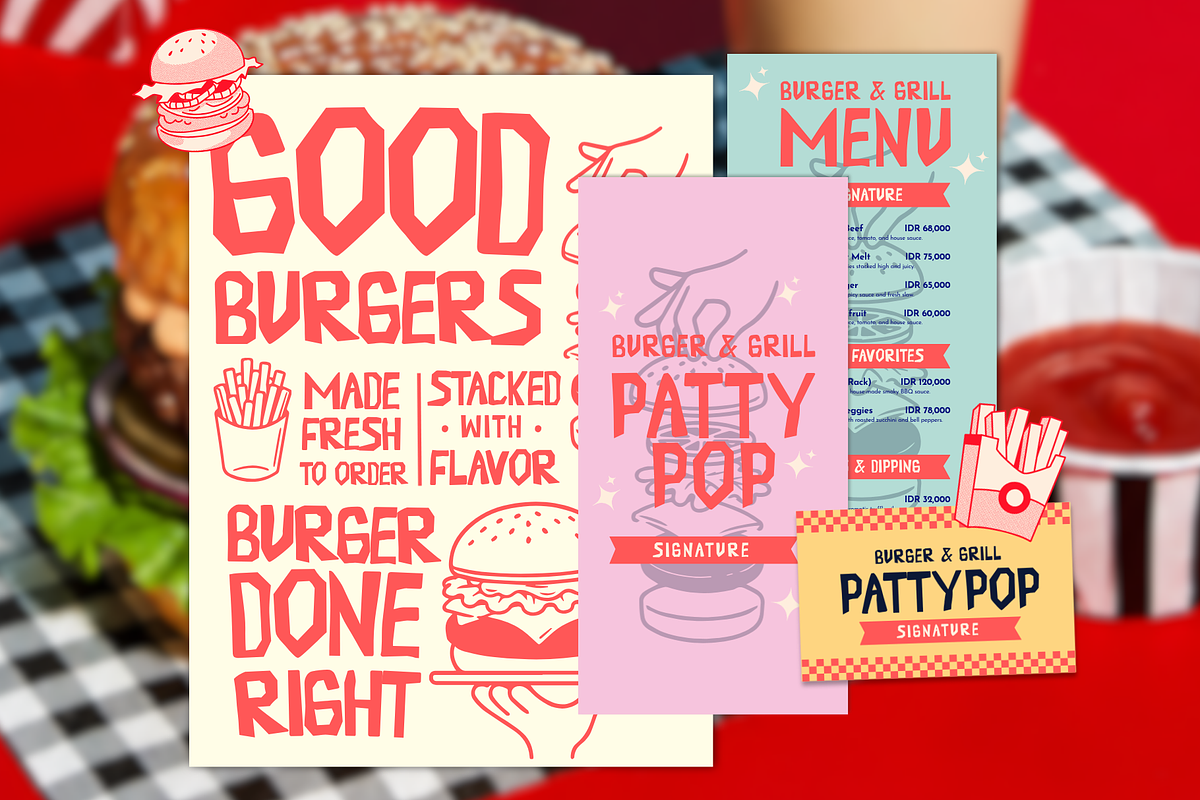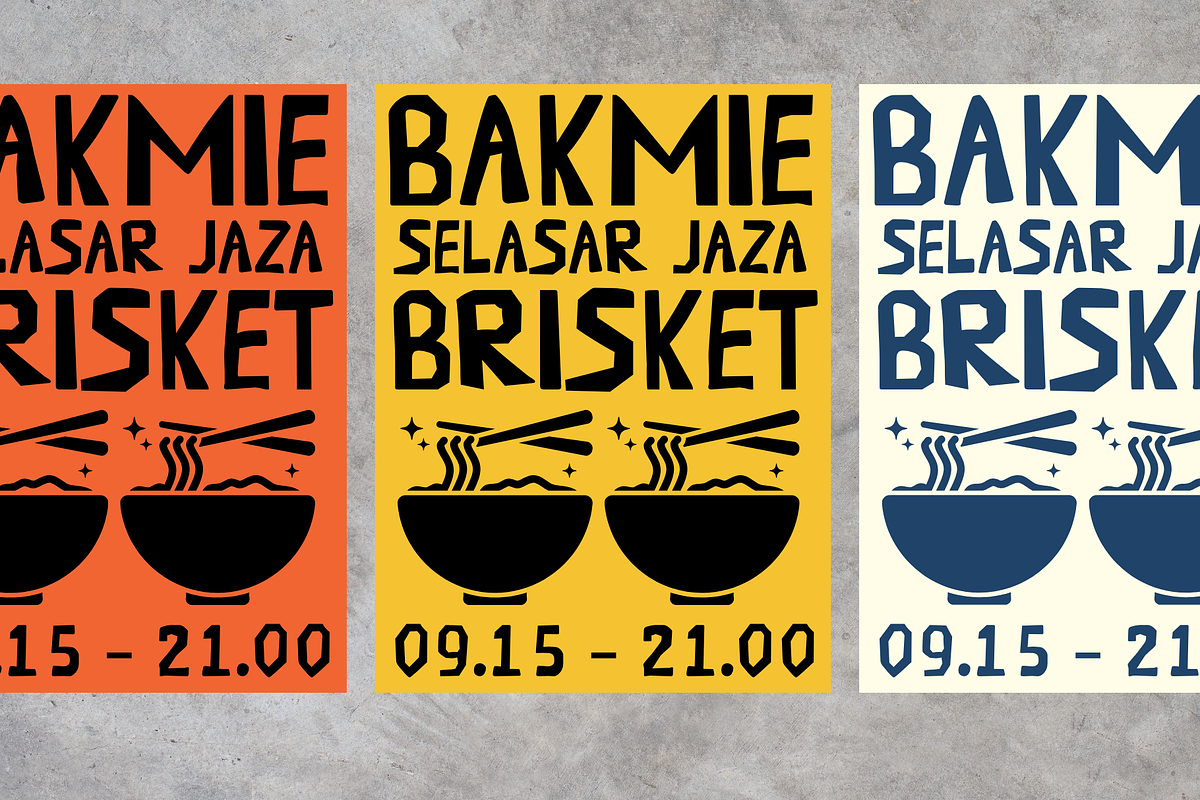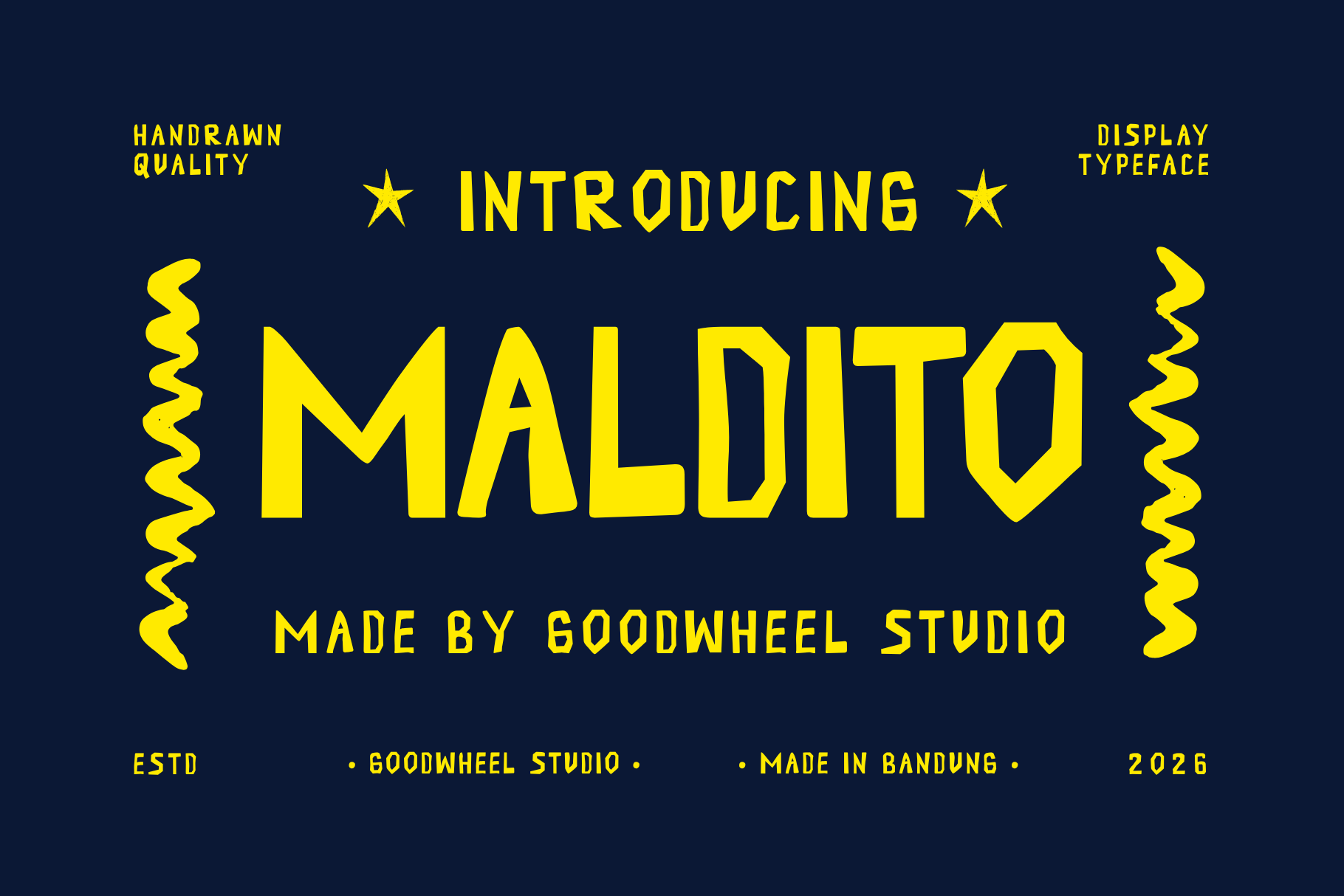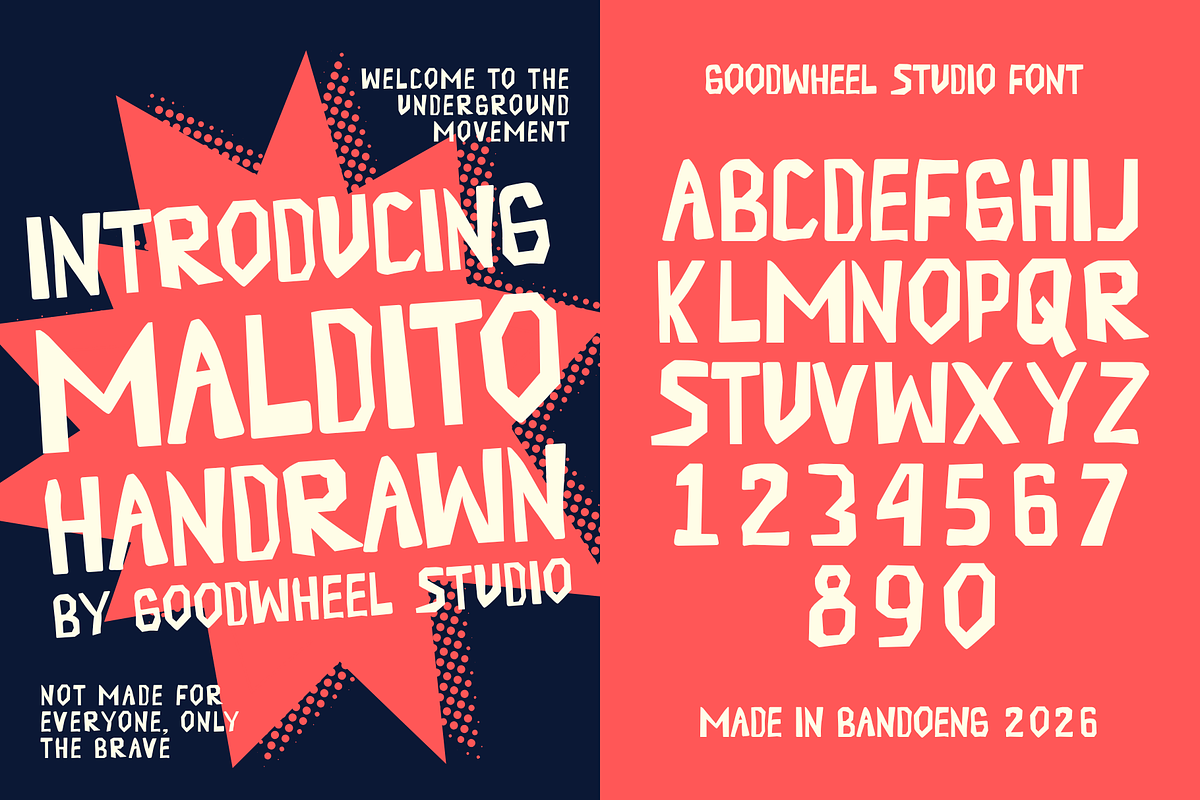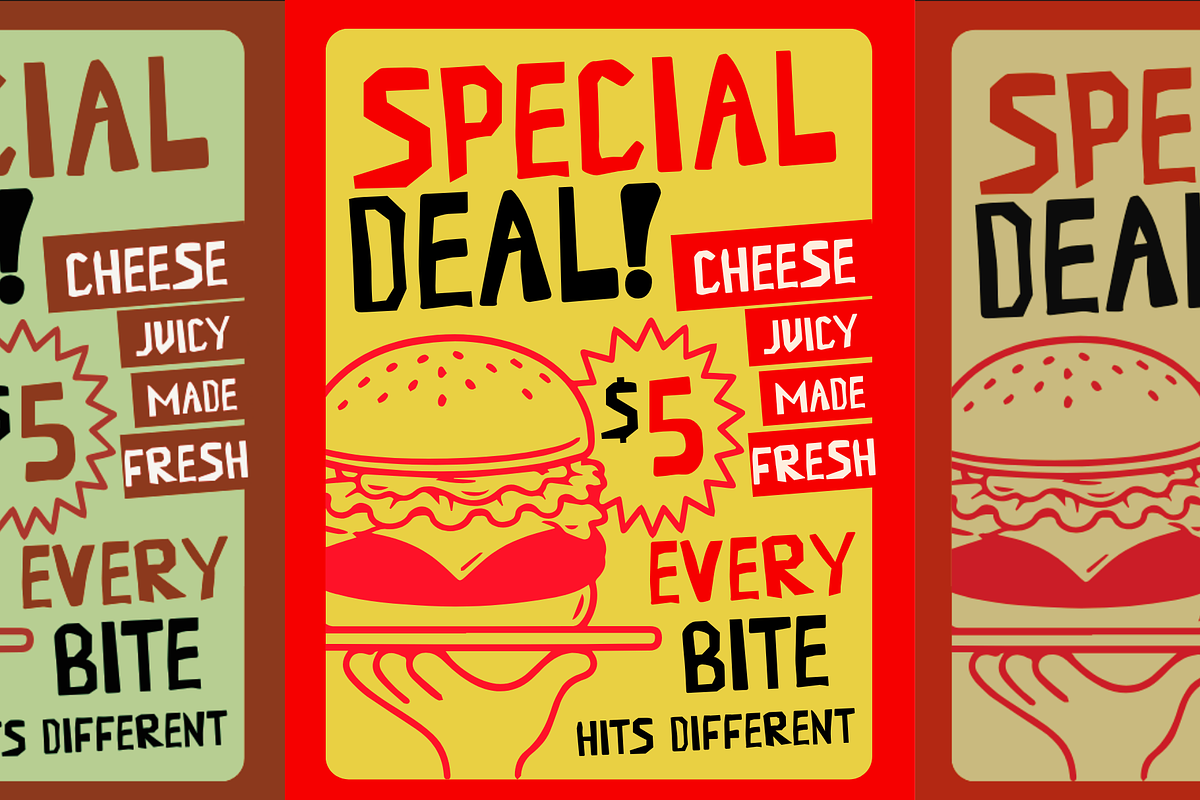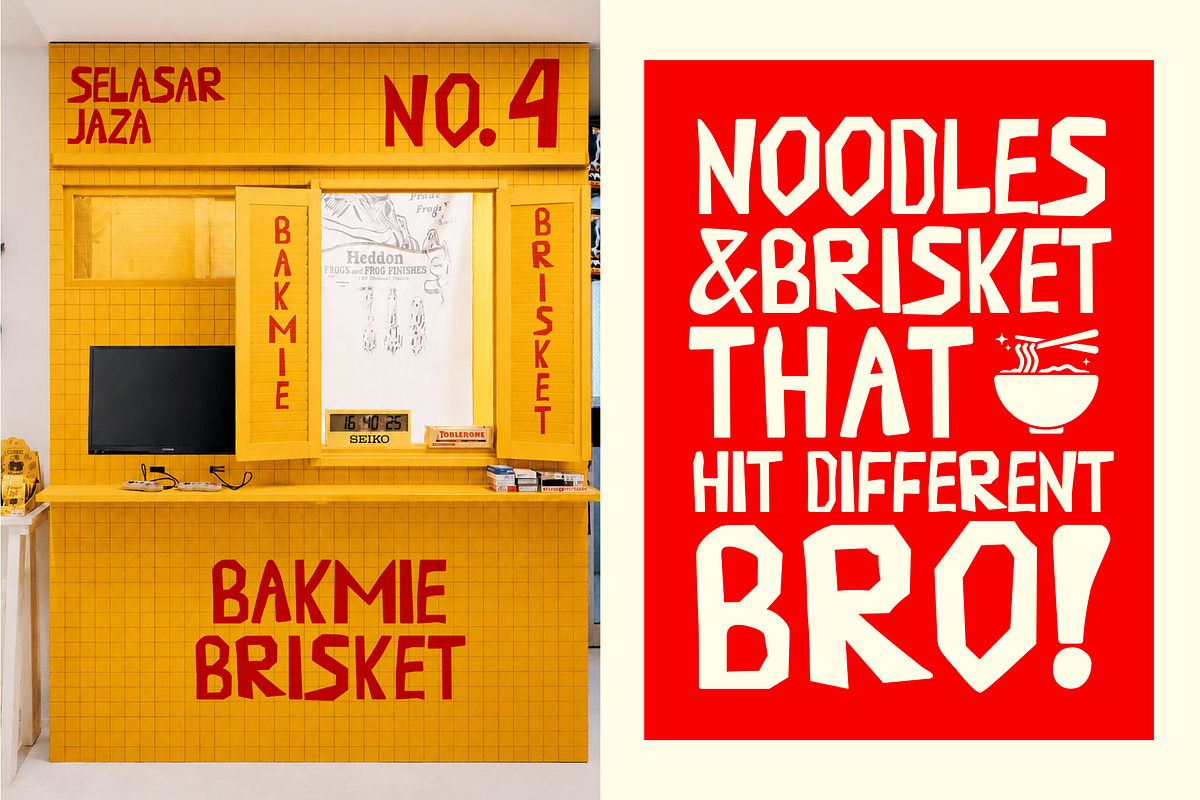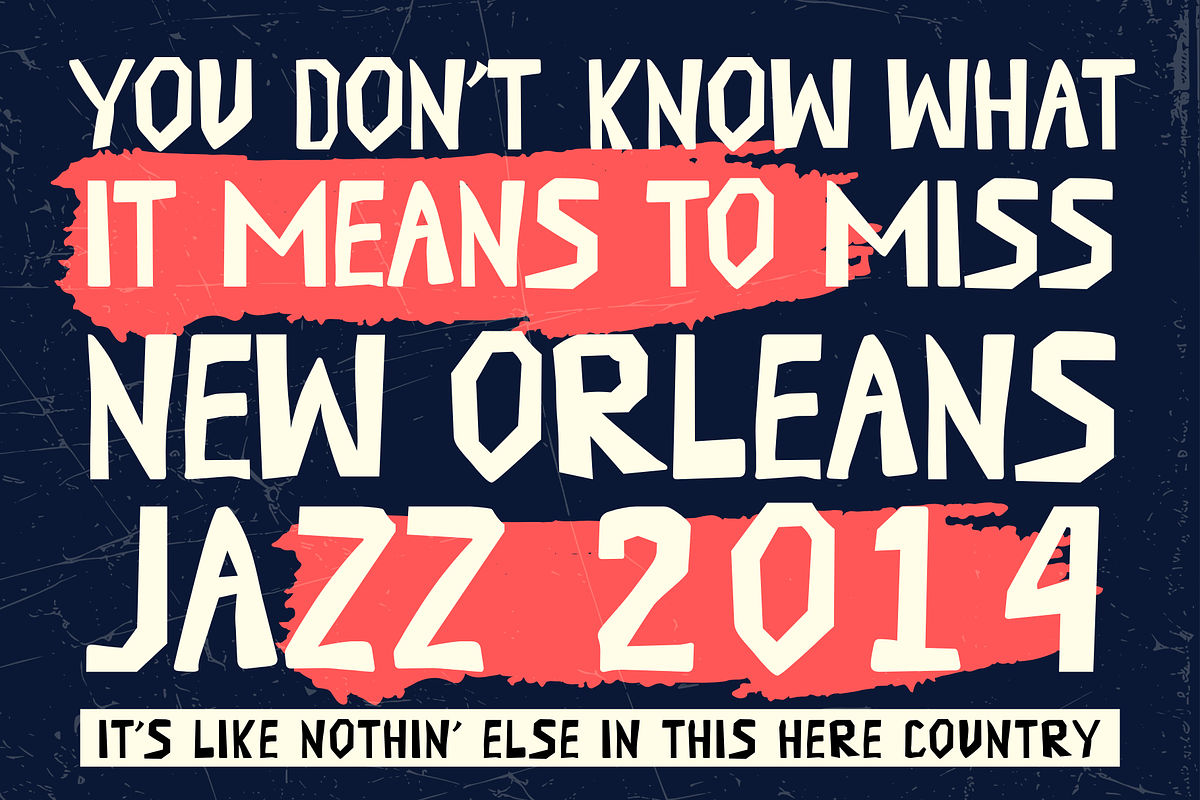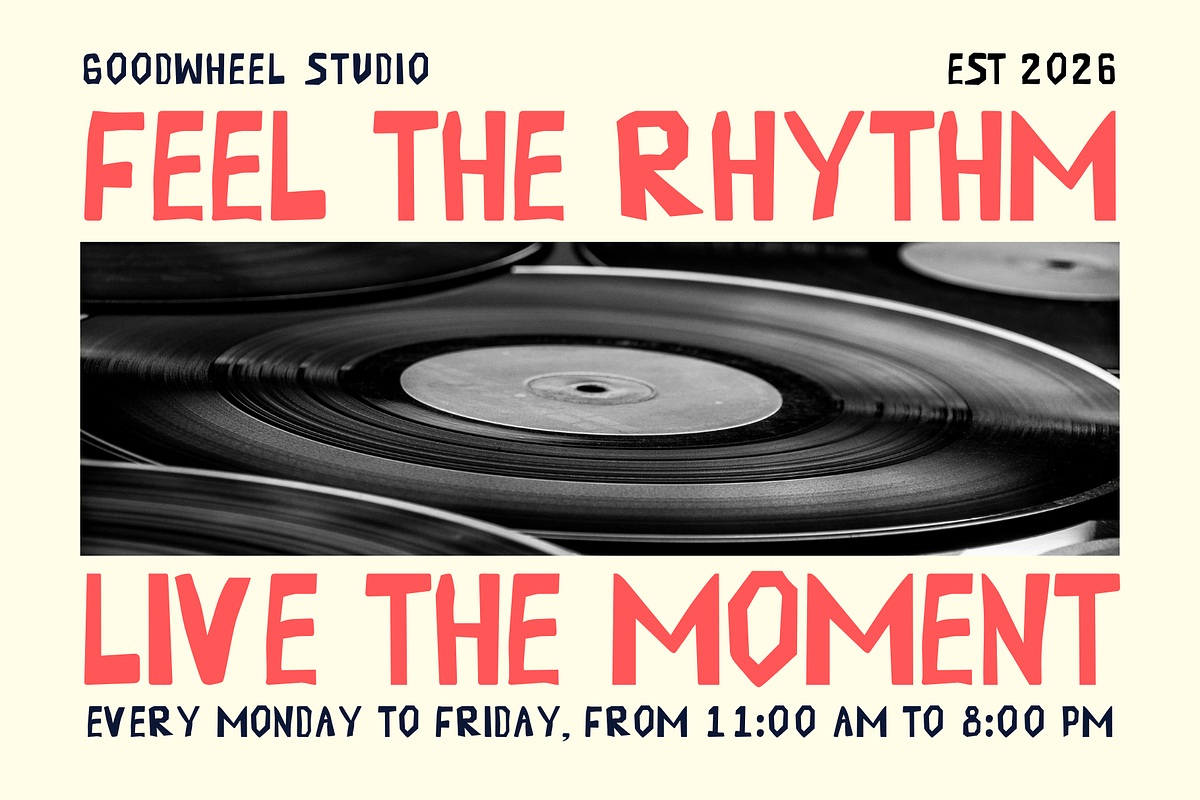
Maldito | Handdrawn Typeface
Maldito is a bold handcrafted display font inspired by underground culture, street posters, punk aesthetics, and rebellious graphic design. Its sharp geometric shapes, irregular handcrafted details, and expressive letterforms create a powerful visual statement that instantly grabs attention. Perfect for album covers, posters, branding, apparel, skate culture, event promotions, packaging, logos, social media graphics, and editorial layouts, Maldito combines raw energy with modern creativity. The font includes uppercase letters, numbers, punctuation, multilingual support, and essential symbols, making it highly versatile for print and digital projects. Maldito is the perfect choice for fearless designers seeking distinctive typography with attitude and unforgettable impact.